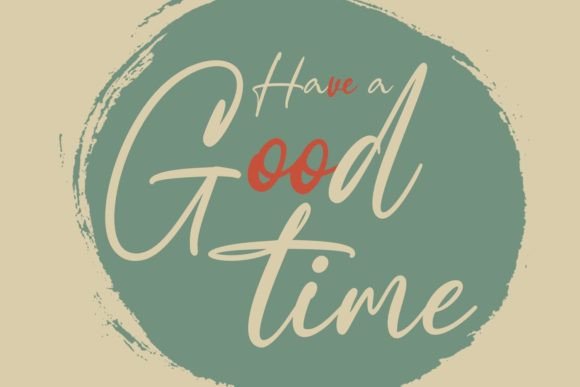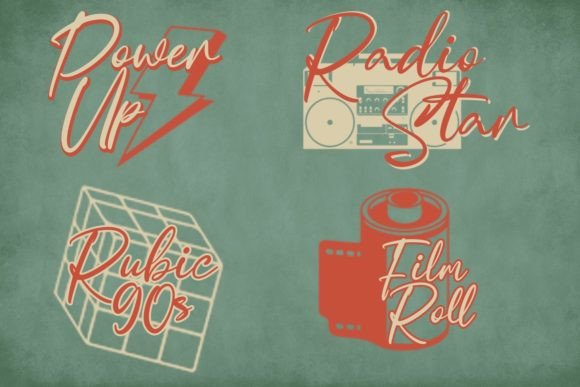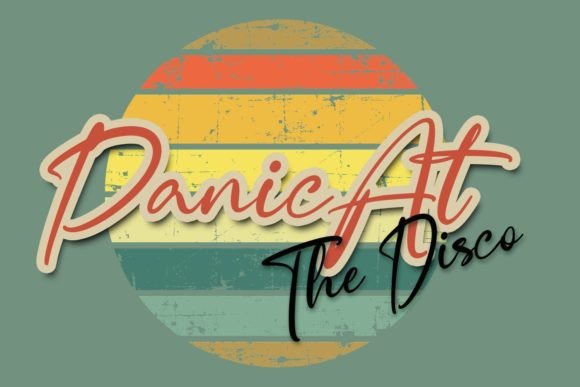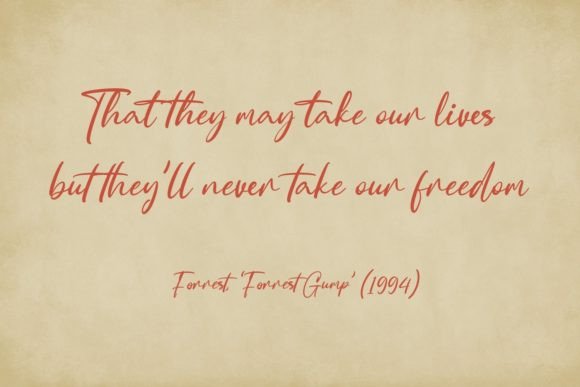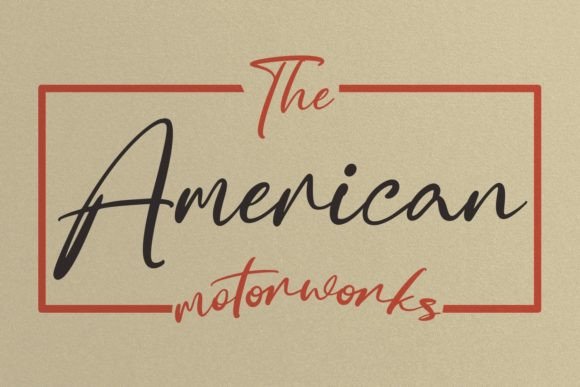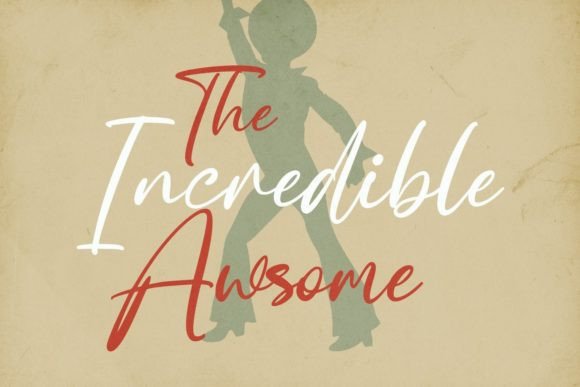
Get Ready to Disco: Introducing the Disko Kids Font
Who hasn’t been there? You’re brainstorming ideas for a new project, and suddenly, a spark of creativity hits you. You envision a bold, playful, and eye-catching design that will make your message stand out. For designers, the right font can make all the difference between a good design and a great one. Enter the Disko Kids Font, a fancy handwritten script font that’s sure to bring a smile to your clients’ faces.
With its bold contrast strokes and fun character, the Disko Kids Font is perfect for a wide range of projects, from photography and social media posts to advertisements and logos. This versatile font is a valuable addition to any designer’s toolkit, offering endless possibilities for creativity and self-expression.
- Unique Characteristics: The Disko Kids Font features a playful, hand-drawn design with bold lines and rounded edges, making it perfect for children’s books, educational materials, and fun designs.
Review of Disko Kids Font
When I first laid eyes on Disko Kids Font, I couldn’t help but feel a sense of excitement. The vibrant, playful aesthetic immediately grabbed my attention. ✨ The font’s bold lines and rounded shapes evoke a sense of fun and energy, making it perfect for projects that require a lighthearted tone.
- ✨ The font’s versatility is impressive. It can be used for a wide range of applications, from children’s books to advertising materials.
- ✨ The font’s unique design elements, such as the stylized letterforms and decorative flourishes, add an extra layer of visual interest.
However, I do have some reservations about the font’s limitations. ⚠️ For one, the font may be too loud or overpowering for certain projects, particularly those that require a more subtle or sophisticated tone.
- ⚠️ The font’s boldness may make it difficult to read in certain contexts, particularly at smaller font sizes.
- ⚠️ The font’s ornate design elements may not be suitable for projects that require a clean and minimalist aesthetic.
Overall, I think Disko Kids Font is a fun and engaging font that can add a unique touch to projects. However, it’s essential to use it judiciously and consider the context in which it will be used.
Tips for Getting the Most Out of the Disko Kids Font
1. Use the Disko Kids Font for playful and fun designs.
2. Experiment with different font sizes and colors to add visual interest.
3. Pair the Disko Kids Font with other bold and playful fonts for a unique look.
1. Children’s party invitations and decorations.
2. Kids’ clothing and product branding.
3. Educational materials and children’s books.
Alternative Fonts to Disko Kids Font
Comic Sans MS is a casual, cursive font that was originally designed for use in comic books and other informal settings. It is a good alternative to Disko Kids Font for projects that require a friendly, approachable tone. Unlike Disko Kids Font, Comic Sans MS is more readable in long blocks of text and is widely available on most computers.
Great Vibes is a modern, playful font that is often used in digital design. It is a good alternative to Disko Kids Font for projects that require a fun, energetic tone. Unlike Disko Kids Font, Great Vibes is more versatile and can be used in a variety of settings, from advertisements to social media graphics.
Pacifico is a beautiful, cursive font that is often used in design and branding projects. It is a good alternative to Disko Kids Font for projects that require a sophisticated, elegant tone. Unlike Disko Kids Font, Pacifico is more refined and can be used in a variety of settings, from invitations to product packaging.